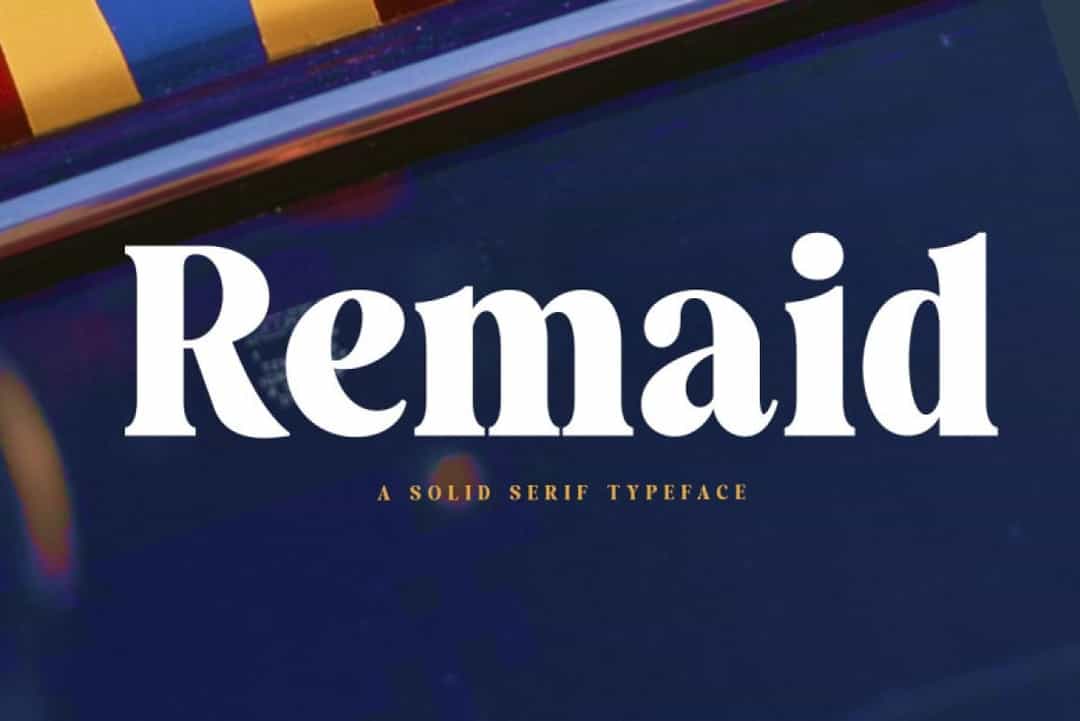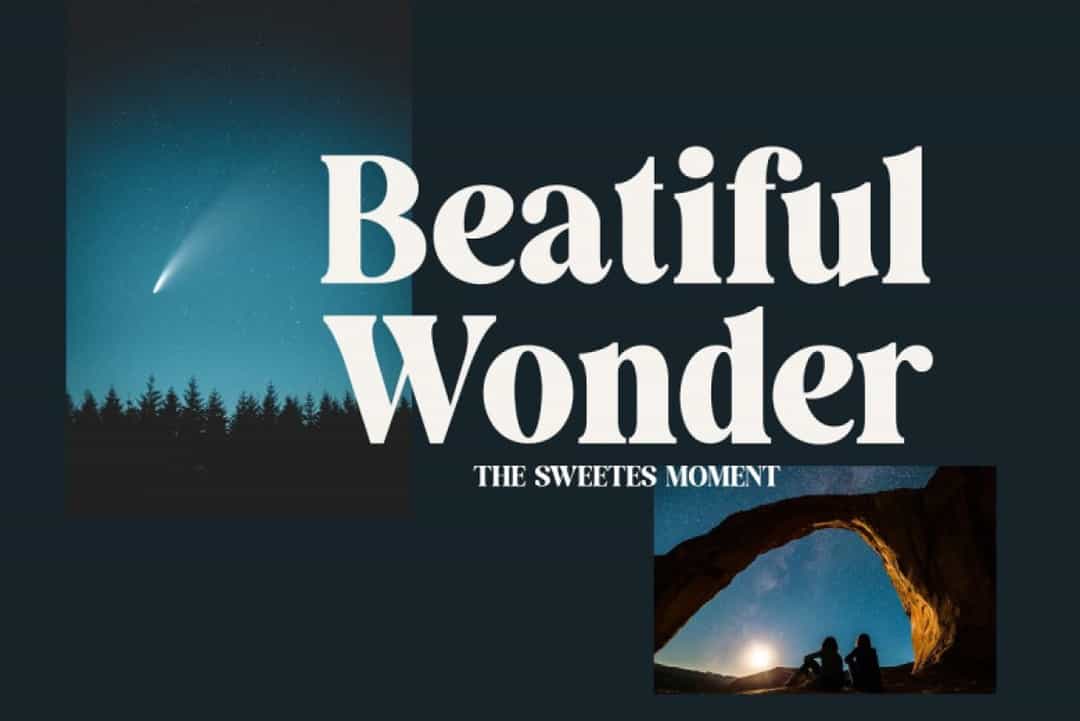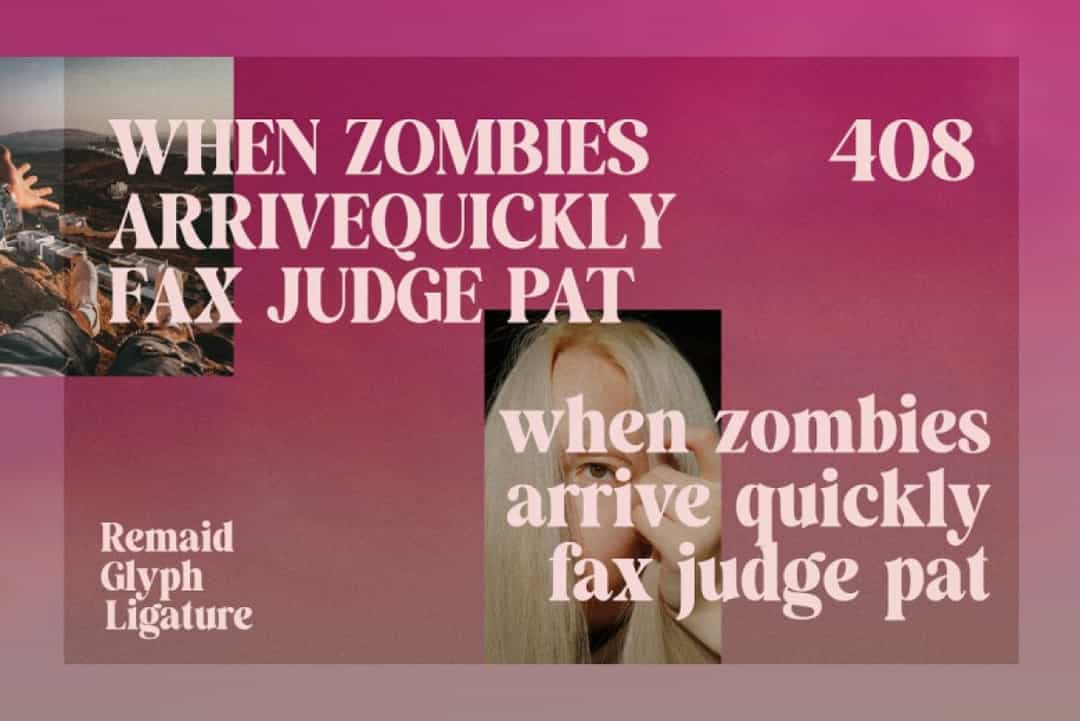
Remaid is an elegant sturdy serif typeface with delicate details. This modern font can add contemporary and trendy branding appeal. With enough character for logos and headlines as well as bridal wear or apparel use – The Remaid font can become part of contemporary and trendy branding appeal! A classic font but feel free to use more elaborate lowercase and uppercase letters!